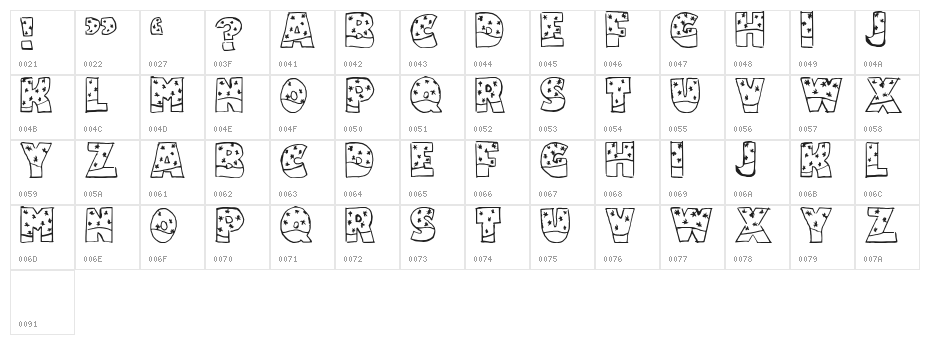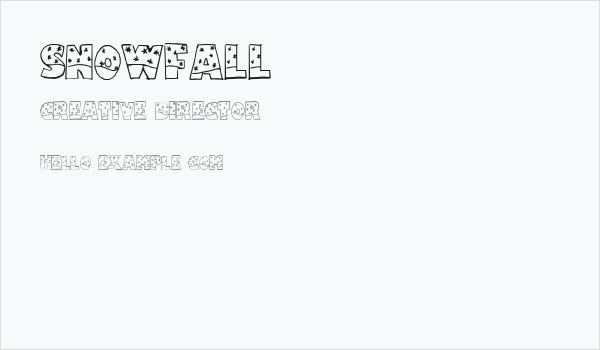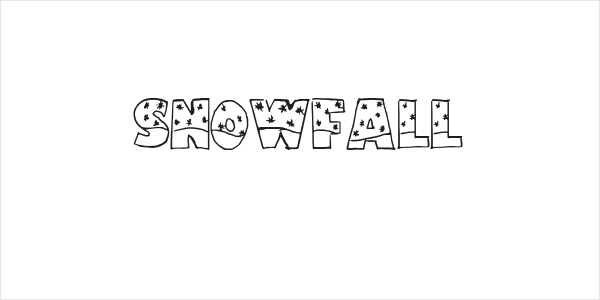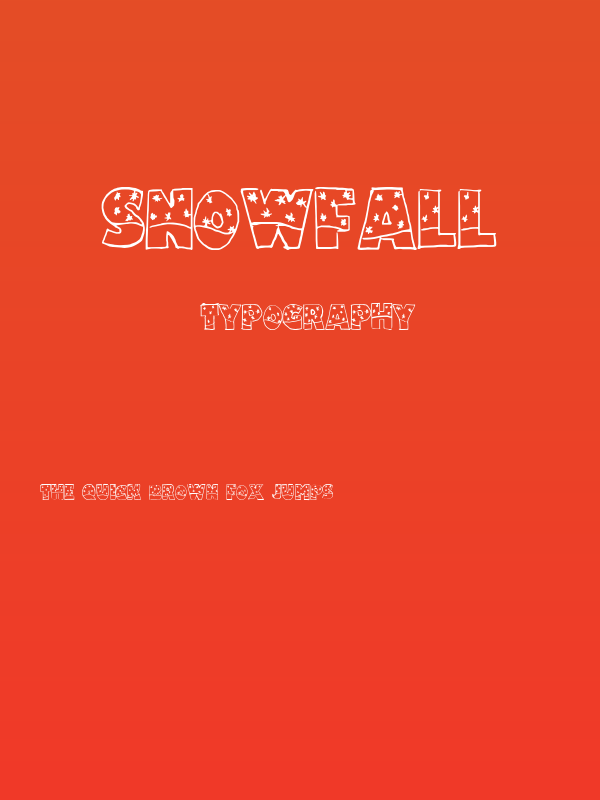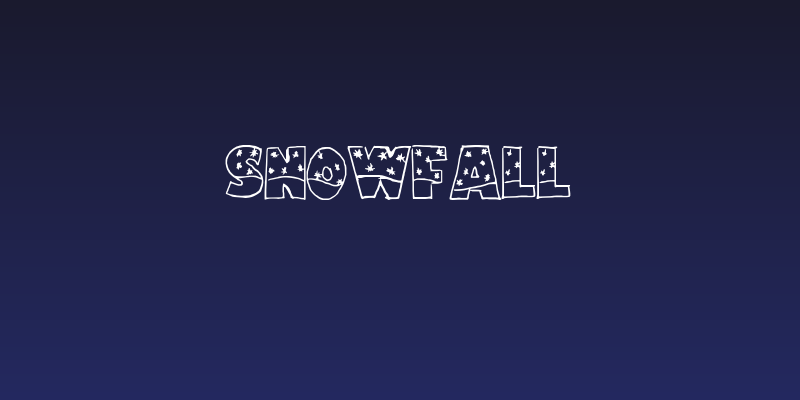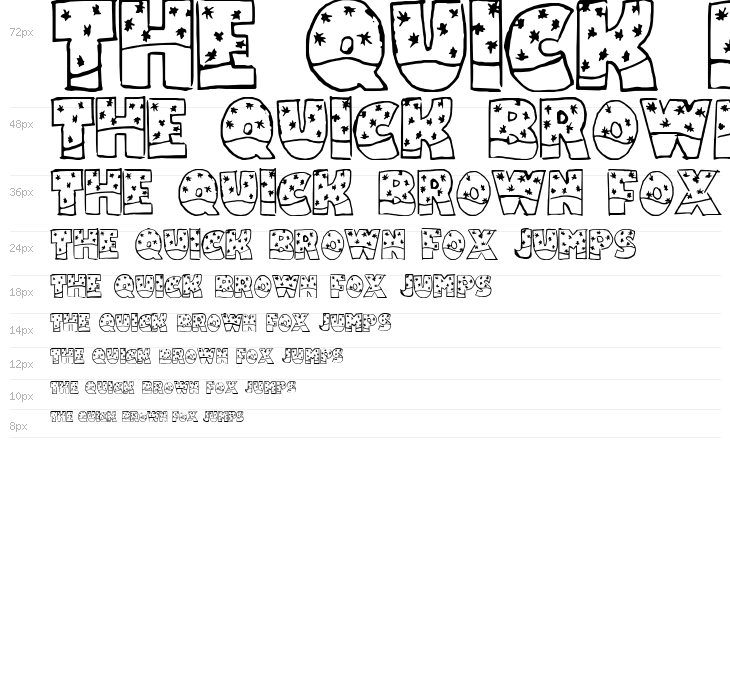
Snowfall Font
Snowfall Description
This playful and whimsical font features bold, chunky letters filled with star and snowflake patterns, evoking a sense of winter wonderland. The uppercase letters are designed with a cartoonish flair, making them ideal for festive and fun projects. The font's decorative style is eye-catching and perfect for capturing attention in holiday-themed designs. The characters are evenly spaced, ensuring readability while maintaining their unique aesthetic. This font is particularly suited for projects that require a touch of magic and joy, such as holiday cards, children's book covers, or winter festival posters.
| Proposed Projects | Holiday cards, children's book covers, winter festival posters, playful branding. |